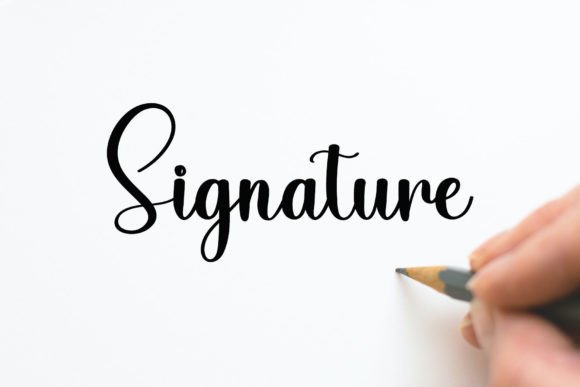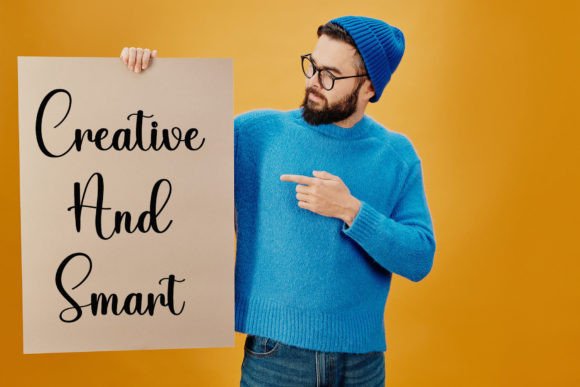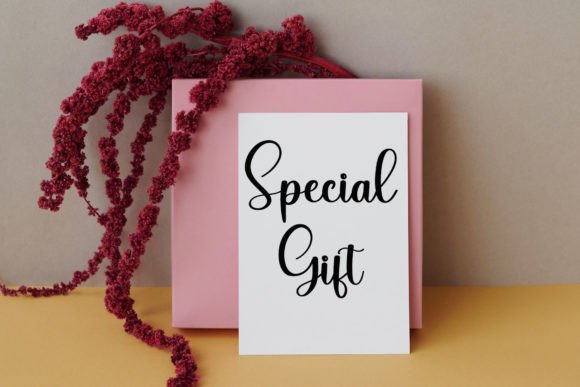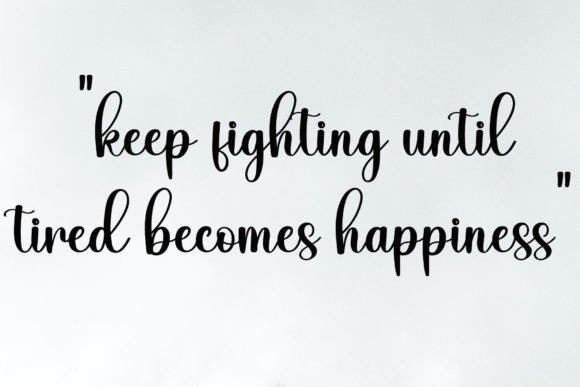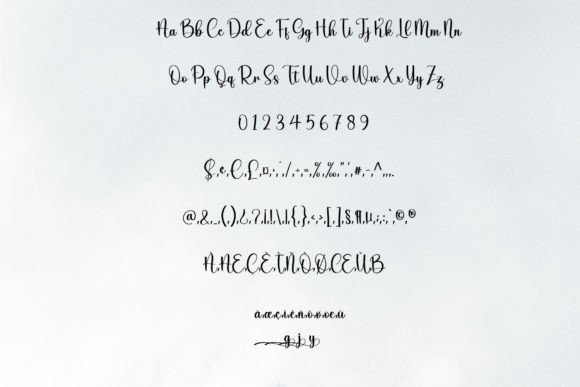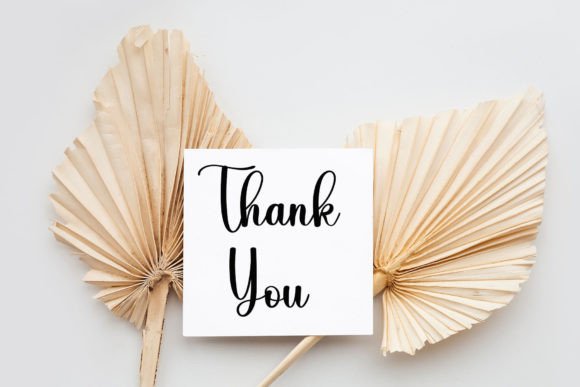
The Sweet Charm of Creamy Font: A Designer’s Delight
I’ll never forget the time I was working on a luxury branding project for a high-end bakery, and I was struggling to find the perfect font to match their elegant vibe. The client wanted something that exuded sophistication, yet remained approachable and warm. That’s when I stumbled upon Creamy Font, a sweet and beautiful handwritten font that instantly captured the essence of the brand. In this article, I’ll share my love for Creamy Font, its features, and how to make the most of it in your design projects.
An Honest Review of Creamy Font
What I Love About Creamy Font ✨
- 💫 Its elegant, cursive script features characters that dance along the baseline, adding a touch of luxury to any design.
- ✅ The font is highly versatile, making it perfect for a wide range of projects, from branding and packaging to wedding invitations and social media graphics.
- 🎨 Creamy Font comes with a range of OpenType features, including glyphs and stylistic alternates, allowing for endless creative possibilities.
- ⚠️ While Creamy Font is generally a highly legible font, some characters may appear a bit narrow or condensed, which can make it less suitable for very large or very small text sizes.
- ⚠️ As with many script fonts, Creamy Font may not be the best choice for body text or lengthy paragraphs, as it can be a bit tiring to read.
The Story Behind Creamy Font
Creamy Font was designed by a talented type designer who wanted to create a font that exuded warmth, elegance, and sophistication. Inspired by traditional calligraphy and handwritten scripts, Creamy Font was crafted to add a touch of luxury to any design project. Whether you’re a designer, crafter, or creative hobbyist, Creamy Font is sure to become a favorite in your font collection.
| Font Name | Creamy Font |
| Author | Harlek studio |
| What type of projects is Creamy Font best suited for? | Creamy Font is perfect for luxury branding, packaging, wedding invitations, social media graphics, and any project that requires a touch of elegance and sophistication. |
| Is Creamy Font suitable for body text or lengthy paragraphs? | While Creamy Font is a beautiful font, it may not be the best choice for body text or lengthy paragraphs, as it can be a bit tiring to read. |